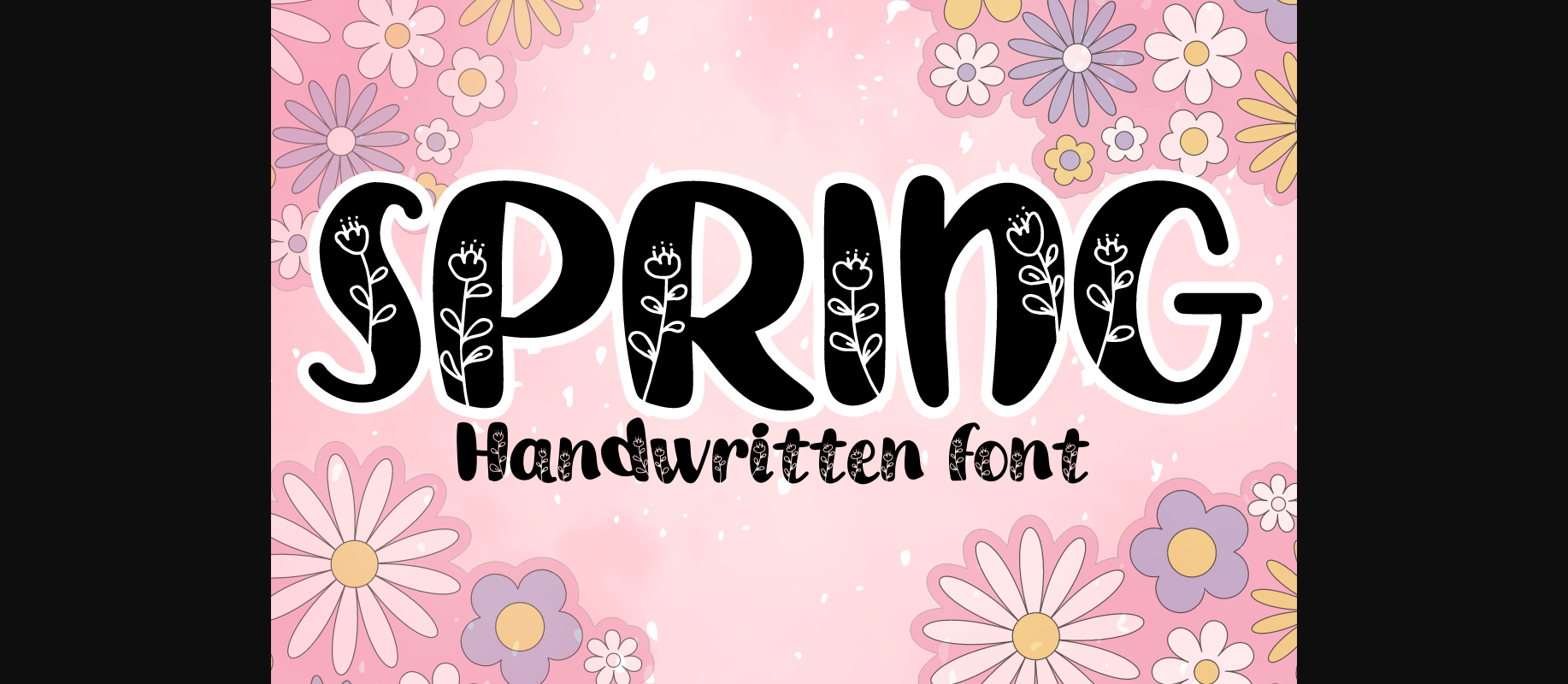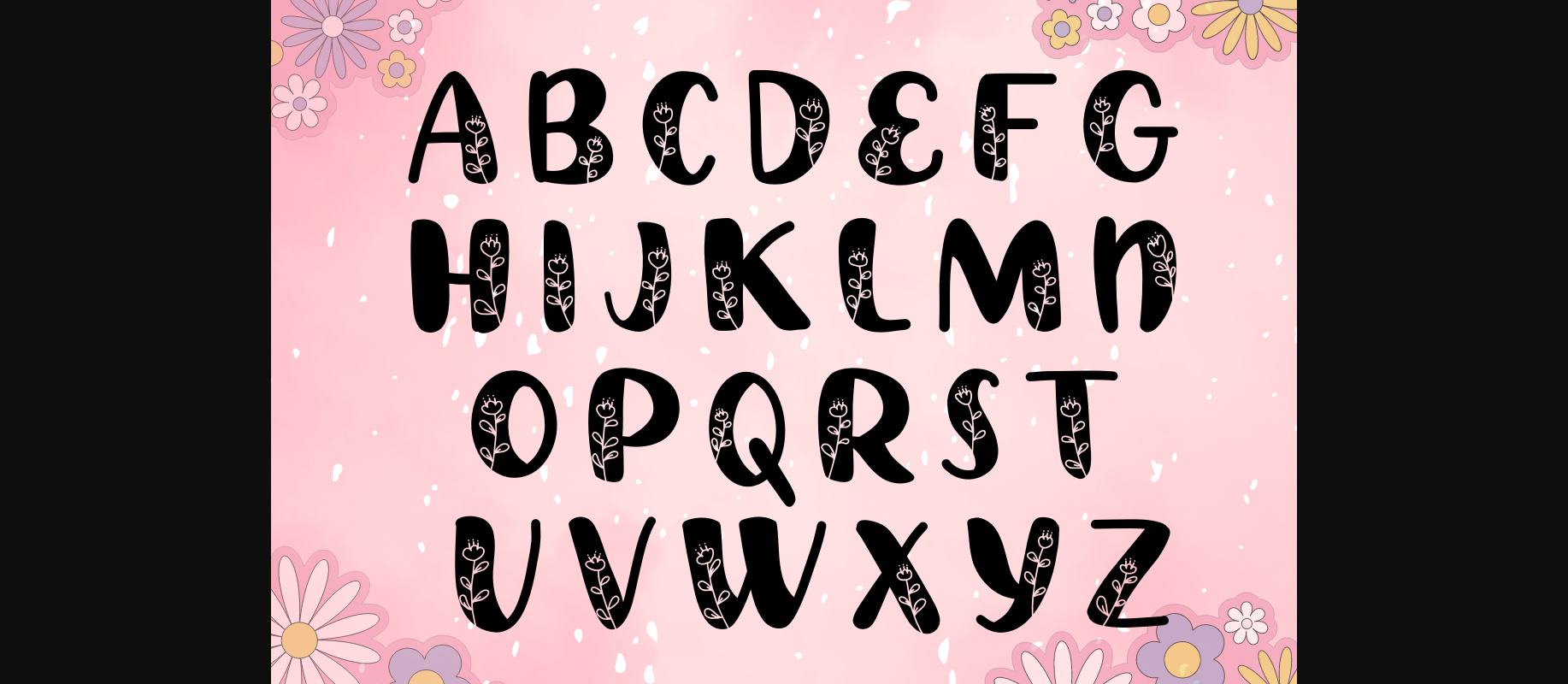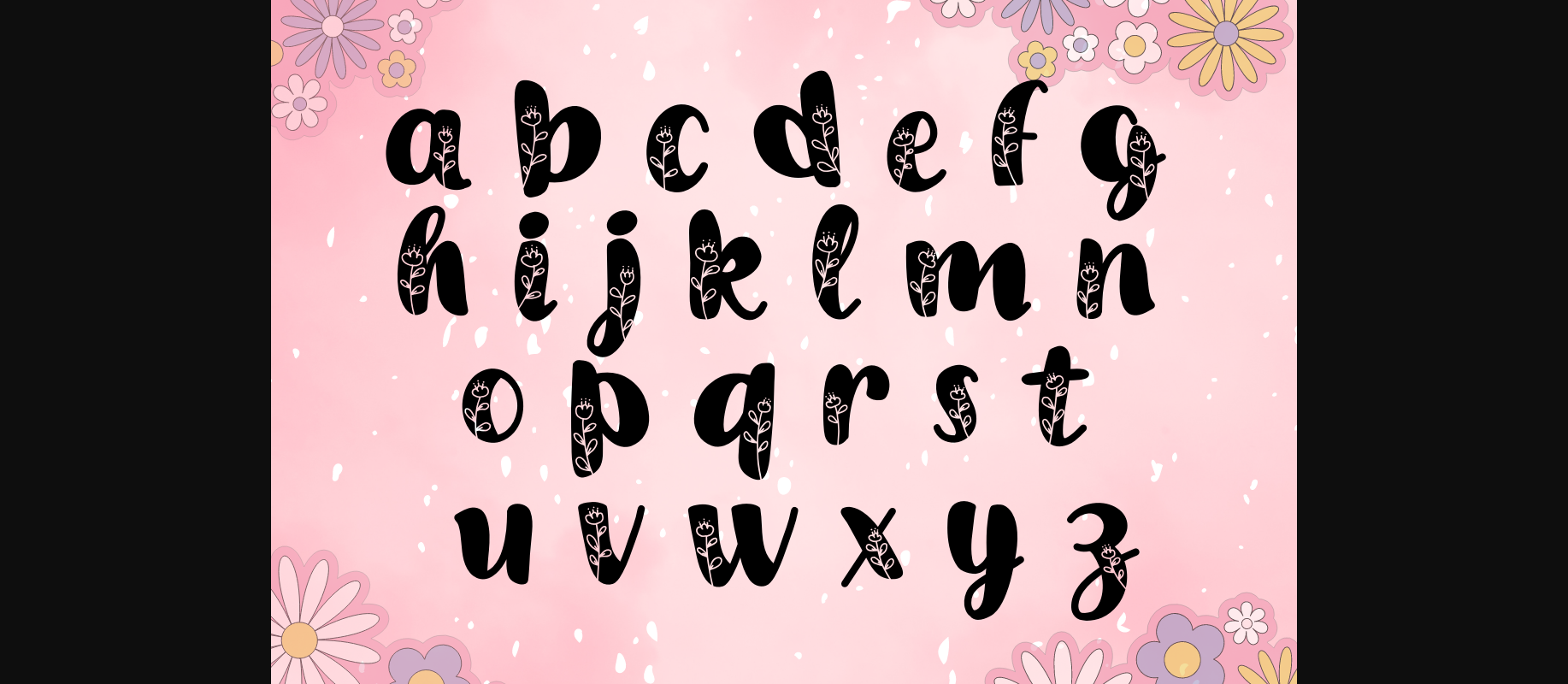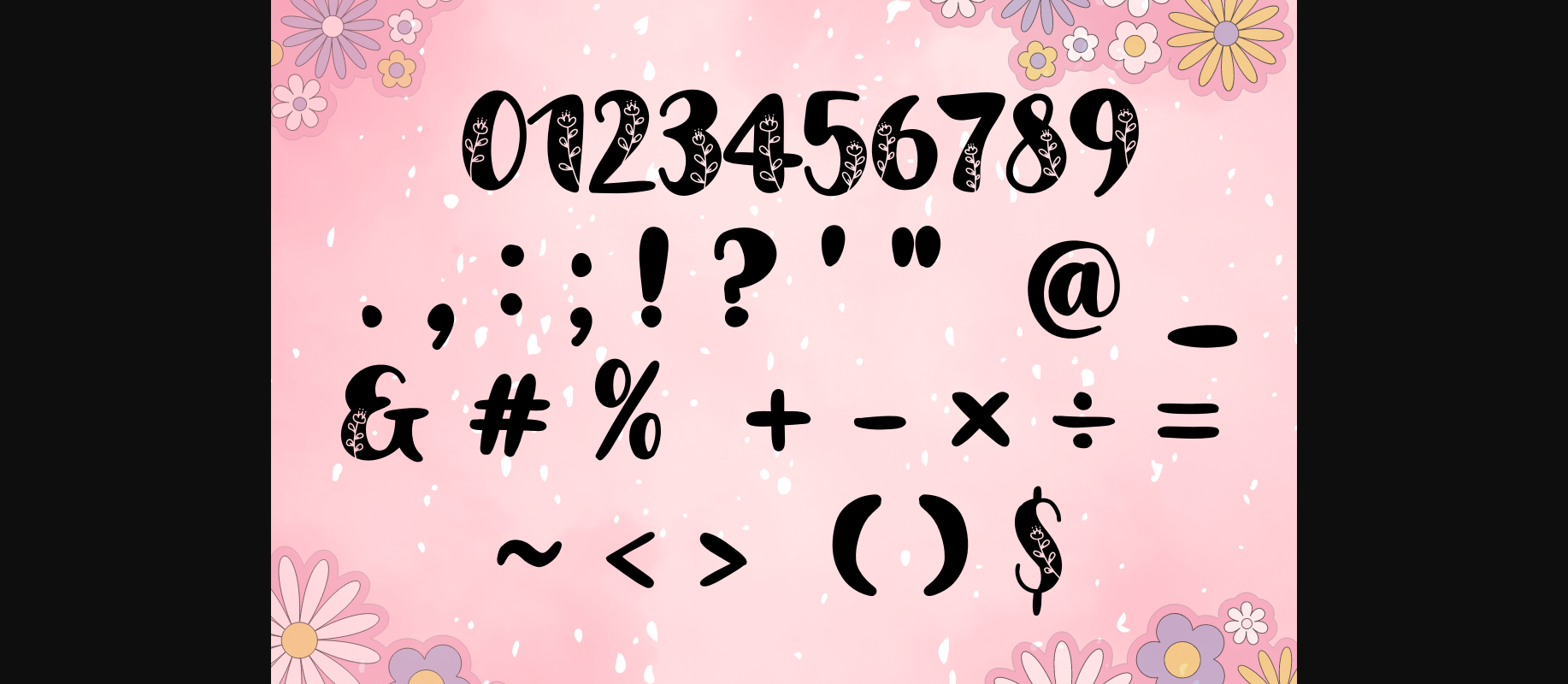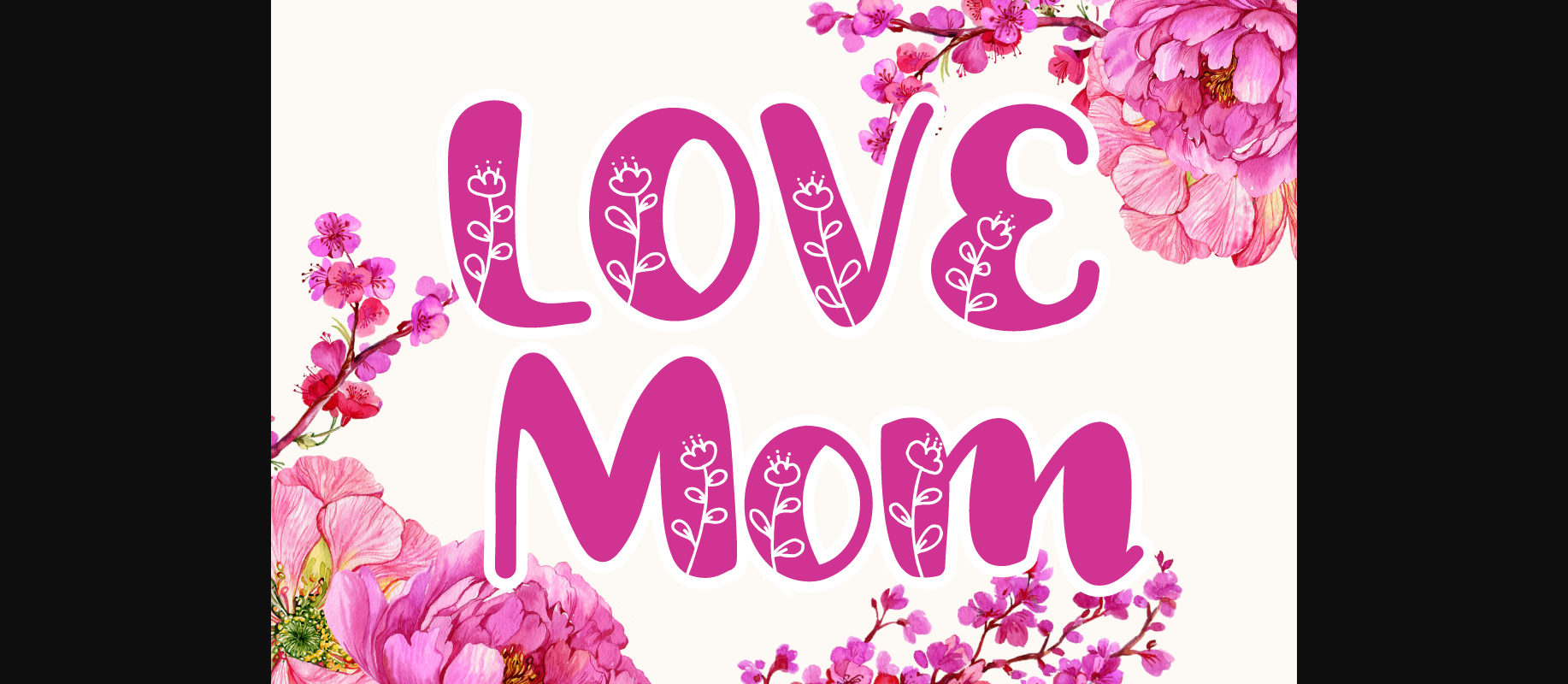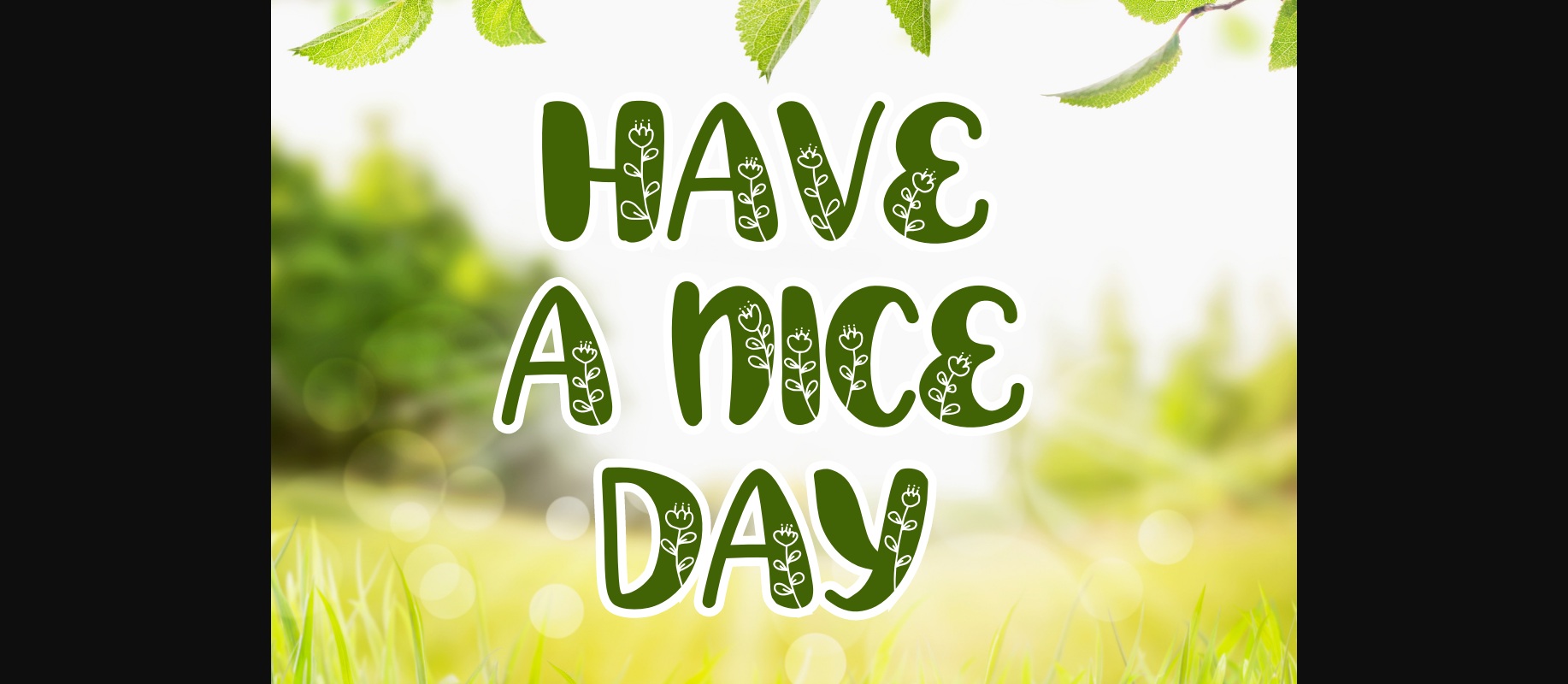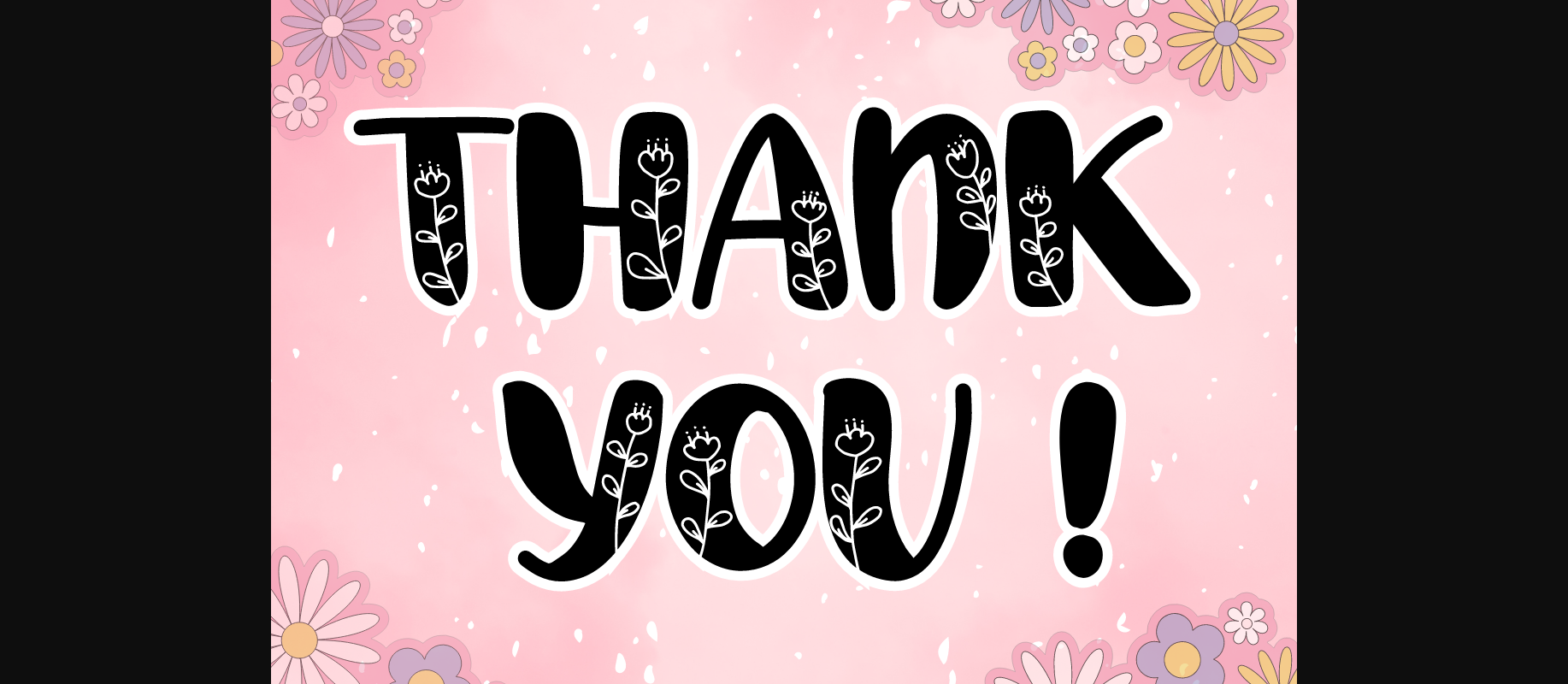
Spring Font
About Spring Font
Spring Font is a charming and whimsical decorative typeface that captures the essence of the blooming season. Each letter is decorated with delicate flowers, bringing a touch of nature and elegance to your projects.
The graceful curves and floral motifs of Spring Font create a joyful and vibrant atmosphere, making it perfect for invitations, greeting cards, and other creative designs that aim to evoke a sense of springtime beauty.